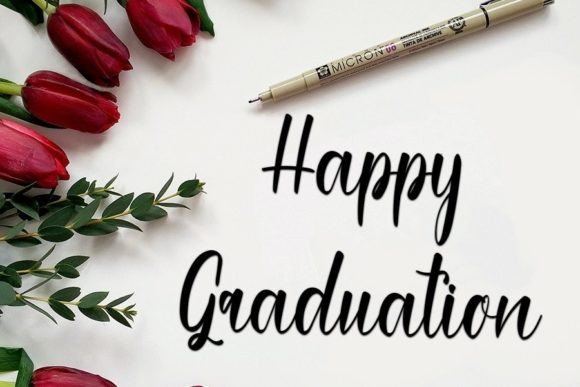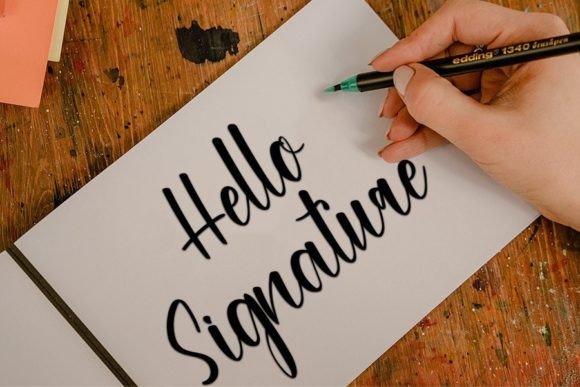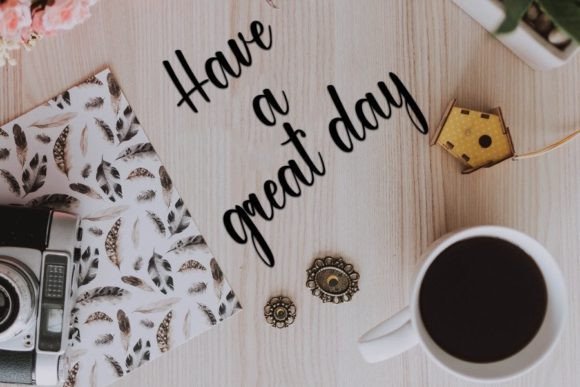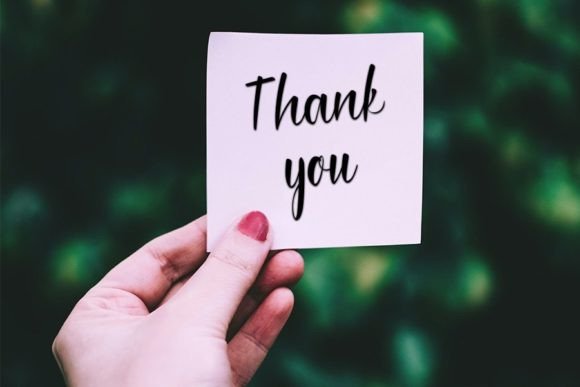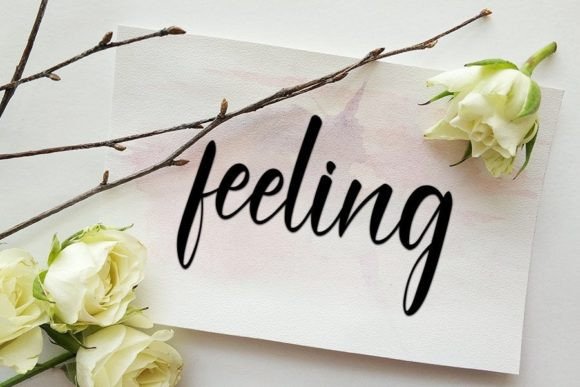
Sometimes Font
About Sometimes Font
Welcome to the world of elegance and distinction with Sometimes, a neat and beautiful handwritten font designed to add an elegant touch to your favorite projects. Fall in love with its distinct and timeless style, and let it be the key to creating spectacular designs that captivate and resonate with sophistication.
Sometimes stands out with its neat and beautiful handwritten design, carefully crafted to convey an elegant touch. The font is versatile, making it suitable for a variety of creative projects. Whether you’re working on branding, invitations, or any design endeavor, Sometimes is created to enhance the visual appeal of your creations.
The versatility of Sometimes allows it to seamlessly integrate into various design contexts. Its distinct and timeless style makes it suitable for a wide range of applications, providing you with the flexibility to express your creativity with elegance and sophistication.
Consider Sometimes not just as a font but as a design companion that adds a touch of distinction to your creations. Its neat and beautiful handwritten style makes it a valuable asset for various design projects, allowing you to infuse your work with a sense of timeless elegance. Let Sometimes be the font that elevates your designs to new levels of visual impact.